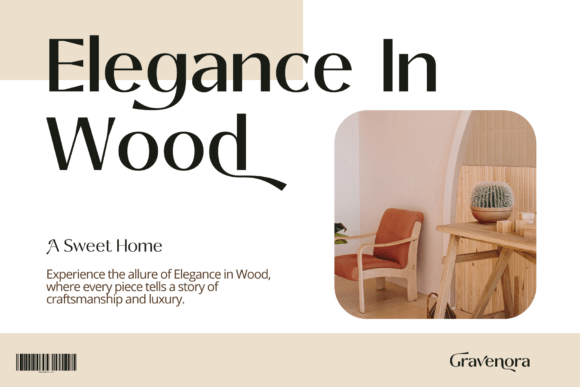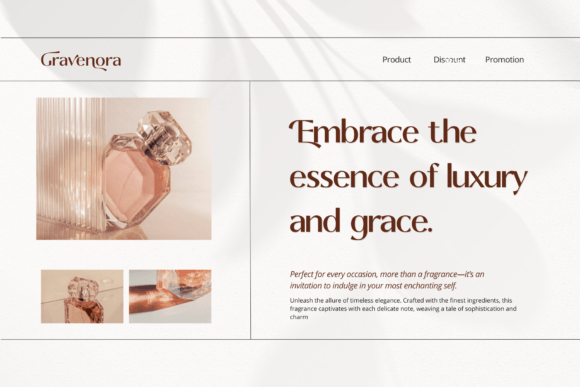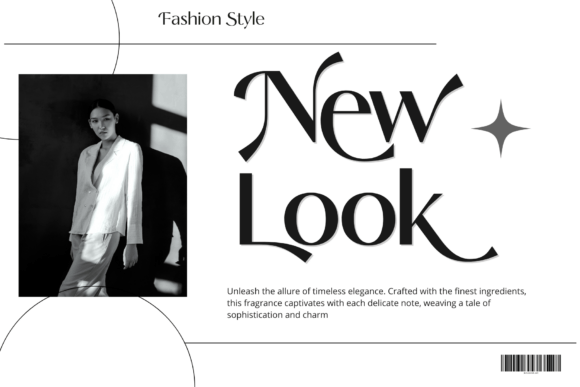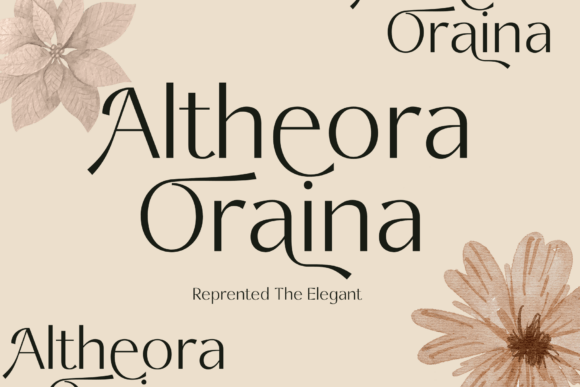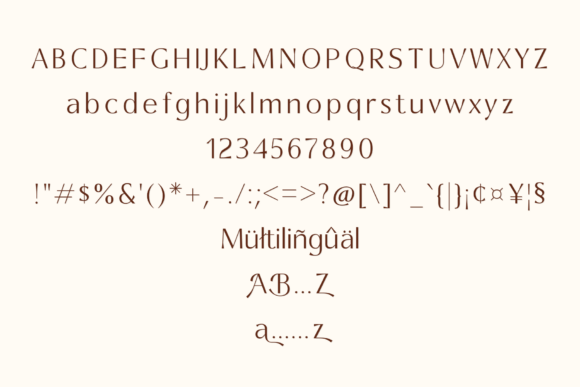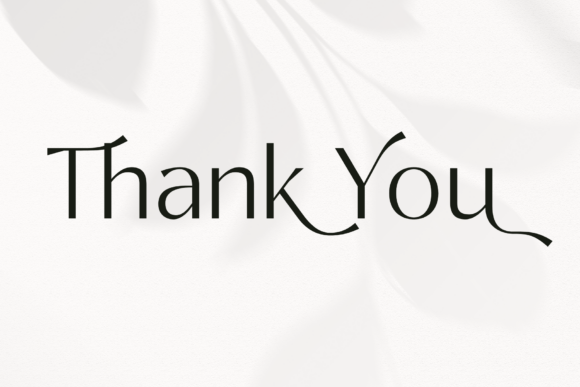
The Elusive Font: A Designer’s Quest for Sophistication
I still remember the frustration of working on a high-end branding project, searching for the perfect font that exuded luxury and sophistication. My client wanted a serif font that felt timeless, yet modern; elegant, yet approachable. After hours of scouring font libraries and testing various options, I stumbled upon Gravenora – a beautifully crafted serif font that merged timeless elegance with contemporary style. It was love at first sight! 💫
An Honest Review of Gravenora
• ✨ **Elegant and Refined**: Gravenora’s serif design is perfect for high-end branding, logos, invitations, and editorial projects that demand sophistication.
• ✅ **Versatile**: This font adapts seamlessly to various design contexts, from digital to print.
• 💡 **OpenType Features**: Gravenora offers a range of OpenType features, including stylistic alternates, ligatures, and glyphs, which allow for creative experimentation.
• 📚 **Extensive Character Set**: The font includes a wide range of characters, ensuring that you can use it for projects that require multiple languages or special characters.
While Gravenora is an exceptional font, there are a few minor considerations to keep in mind:
• ⚠️ **Glyph Limitations**: Some users have reported that certain glyphs or special characters are not available in the standard font package.
The Designer Inspiration Behind Gravenora
Gravenora’s design story begins with a passion for classic typography and a desire to create a modern, elegant serif font. The font’s creator drew inspiration from traditional serif fonts, refining and updating their design to suit contemporary tastes. The result is a font that feels both timeless and modern – perfect for designers seeking a sophisticated edge.
Q: What makes Gravenora suitable for high-end branding projects?
A: Gravenora’s elegant serif design, extensive character set, and OpenType features make it an excellent choice for high-end branding projects that demand sophistication and luxury.
Q: Can I use Gravenora for both digital and print projects?
A: Yes, Gravenora is a versatile font that adapts well to various design contexts, including digital and print projects.
Q: Does Gravenora support multiple languages?
A: Yes, Gravenora includes a wide range of characters, ensuring that it can be used for projects that require multiple languages or special characters.